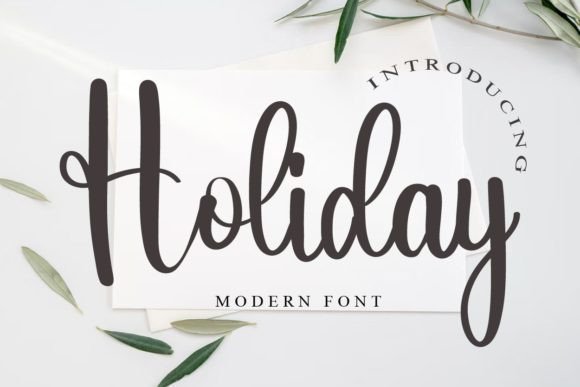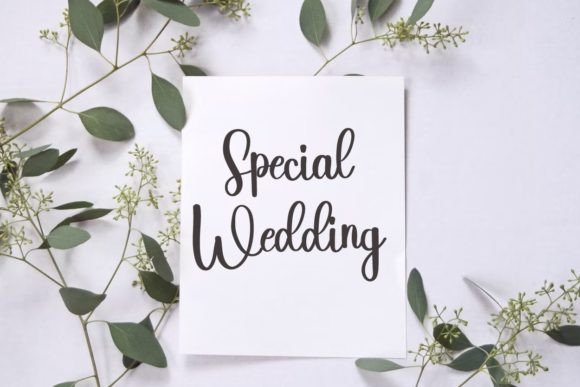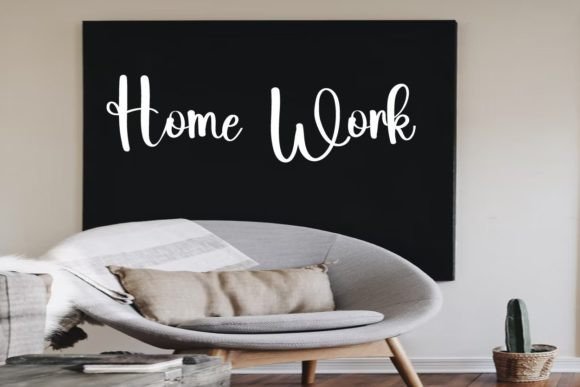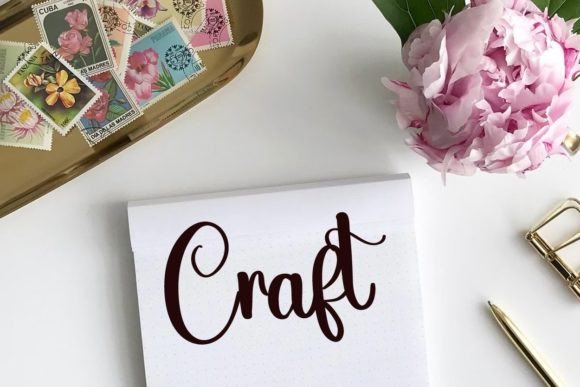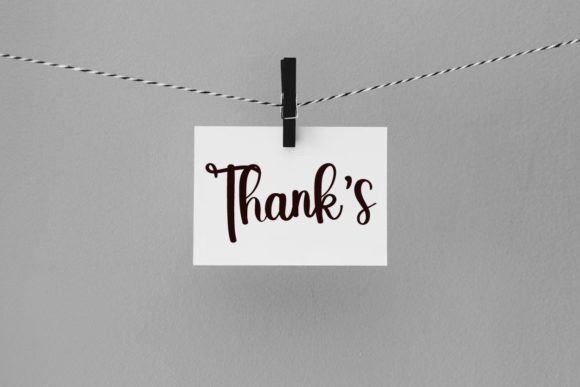
Unlock the Magic of Holiday Season with a Font that Shines
Do you remember that moment when you stumbled upon the perfect font that elevated your design from ordinary to extraordinary? For me, it was the feeling of excitement and joy that came with discovering a font that perfectly captured the essence of a holiday season. Whether it’s Christmas, Easter, or Thanksgiving, a well-chosen font can make all the difference in conveying the festive spirit.
Enter the Holiday Font, a stunning and elegant handwritten font that’s perfect for adding a touch of magic to your designs. With its beautiful and fresh look, this font is ideal for YouTube banners, covers, logos, mockups, wedding invitations, ID cards, flyers, crafts, and many more creative projects. By incorporating the Holiday Font into your designs, you’ll be able to give your business the boost it needs to progress and develop.
Holiday Font Key Features
- Font Family: Holiday Font offers a unique, festive font family with a range of styles, including Holiday Script, Holiday Bold, and Holiday Italic.
- Resolution: Designed for high-resolution displays, Holiday Font is optimized for use at 300 DPI or higher, ensuring crisp and clear text even at large sizes.
- Unique Characteristics: The font features a distinctive, cursive style with a mix of swashes and flourishes, adding a touch of elegance and festivity to any design.
- Language Support: Holiday Font supports a wide range of languages, including English, Spanish, French, German, Italian, and many more, making it a versatile choice for international designs.
Review of Holiday Font
Overall, I think the Holiday Font is a cute addition to any festive design project. Here are some things that stand out to me: ✨
- Playful feel: The Holiday Font has a fun, whimsical feel that’s perfect for capturing the spirit of the holiday season.
- Customizable: The font comes in a variety of styles and weights, making it easy to customize to fit your design needs.
- Eye-catching: The bold lines and festive details of the font make it stand out on any design project.
- Limited font family: While the font has multiple styles and weights, it’s still a relatively small font family, which may limit its versatility.
- Not ideal for body text: The font is best used for headlines and titles, as it can be a bit too ornate for large blocks of body text.
- May not be suitable for modern designs: The font has a very traditional, vintage feel that may not be the best fit for modern or minimalist design projects.
Overall, I think the Holiday Font is a great choice for designers looking to add some festive flair to their projects. While it may have some limitations, its playful feel and customizable options make it a great addition to any holiday design project.
The Holiday Font is perfect for:
- Creating festive invitations and cards.
- Designing holiday-themed social media graphics.
- Adding a touch of holiday cheer to newsletters and emails.
For the most impact, use the Holiday Font in conjunction with bold colors and festive graphics.
Alternatives to Holiday Font for Designers
Copperplate is a classic script font that resembles handwritten calligraphy. It’s ideal for formal invitations, wedding stationery, and luxury branding. Copperplate is more elegant and refined than Holiday Font, making it suitable for high-end designs.
Carolyna Pro is a modern script font with a touch of elegance. It’s perfect for creating a sophisticated and luxurious atmosphere, making it ideal for weddings, special occasions, and high-end branding. Carolyna Pro is more versatile than Holiday Font and can be used for a wide range of designs, from formal to casual.
Great Vibes is a beautiful script font with a relaxed and casual feel. It’s perfect for creating a warm and inviting atmosphere, making it ideal for summer events, outdoor weddings, and casual branding. Great Vibes is more laid-back than Holiday Font and can add a touch of whimsy to your designs.